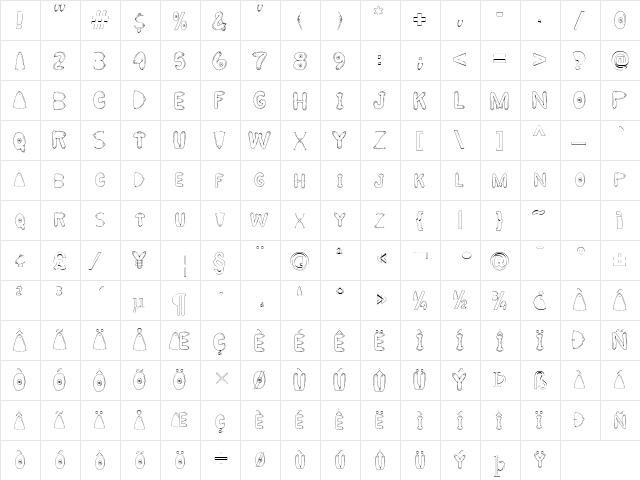
BIG BREAST FONT Regular
Design Context for BIG BREAST FONT Typeface
BIG BREAST FONT is a composed and adaptable typeface that performs quietly and consistently across a wide range of design contexts.